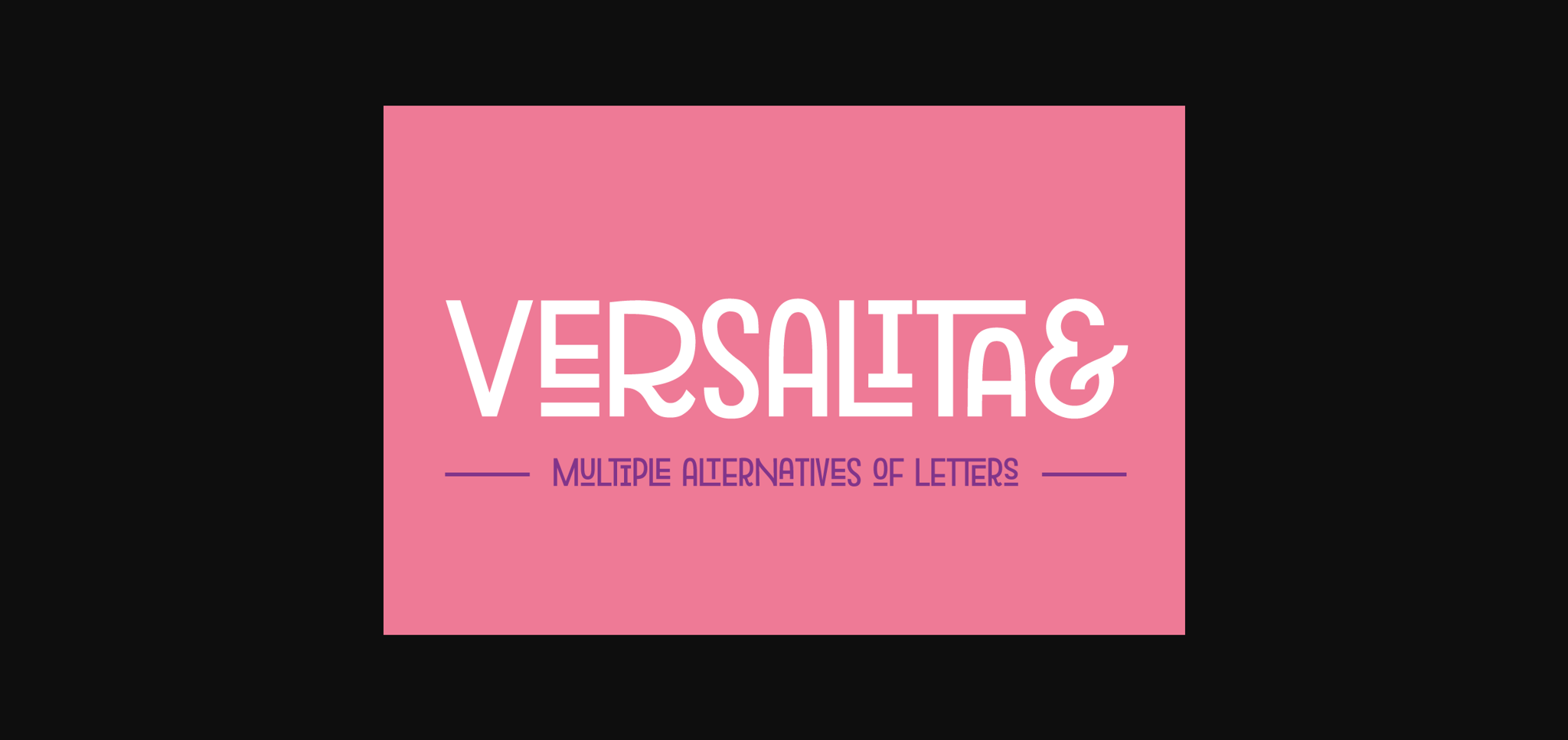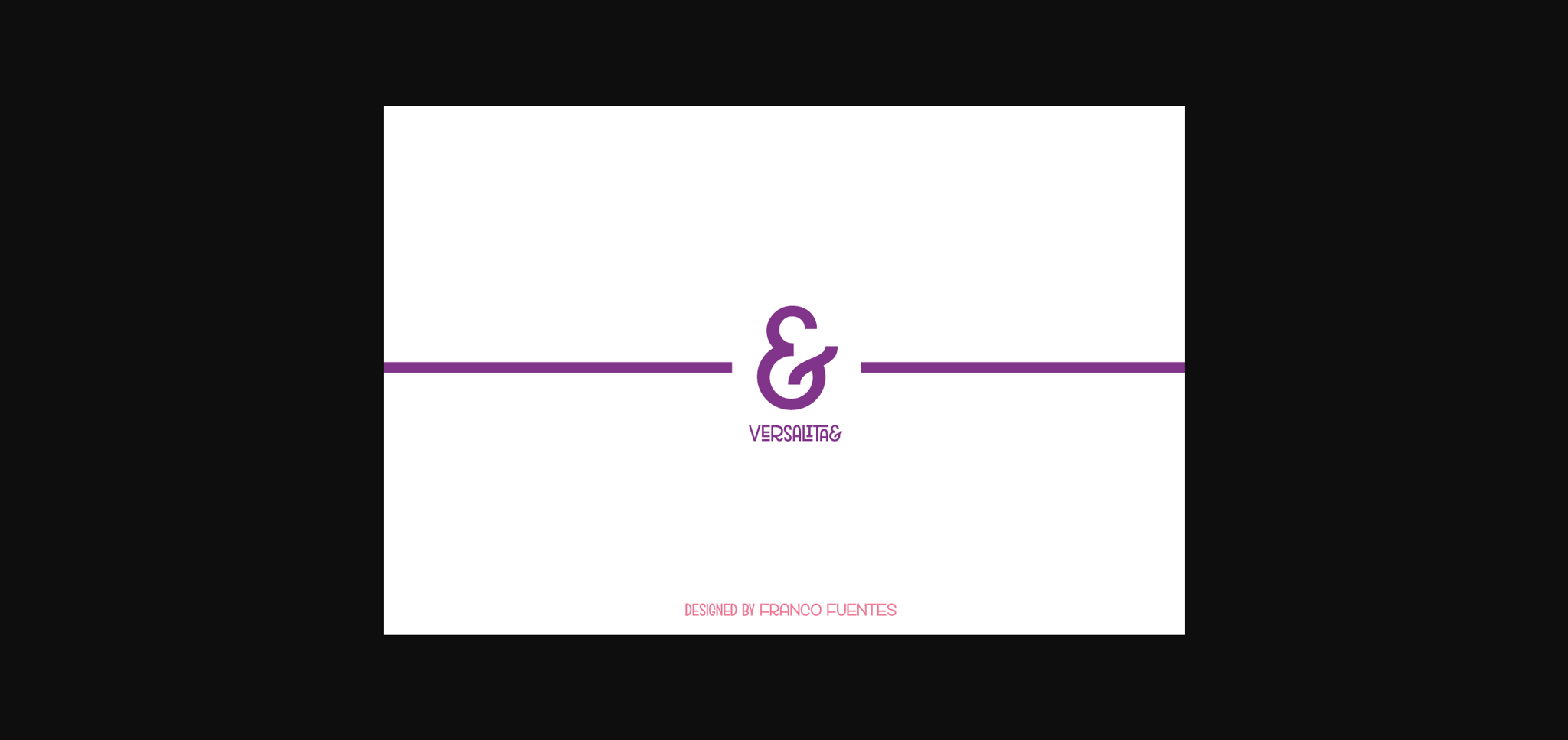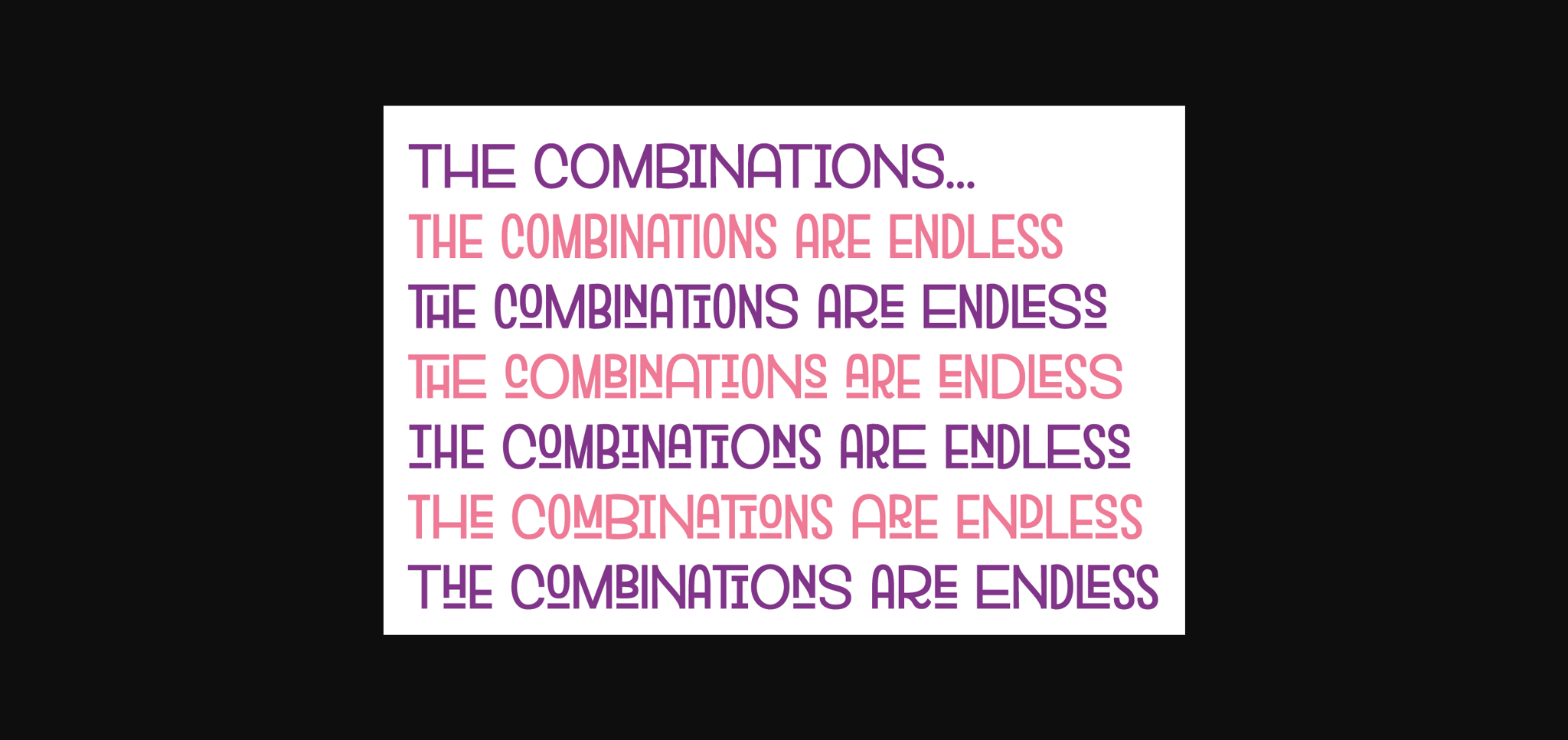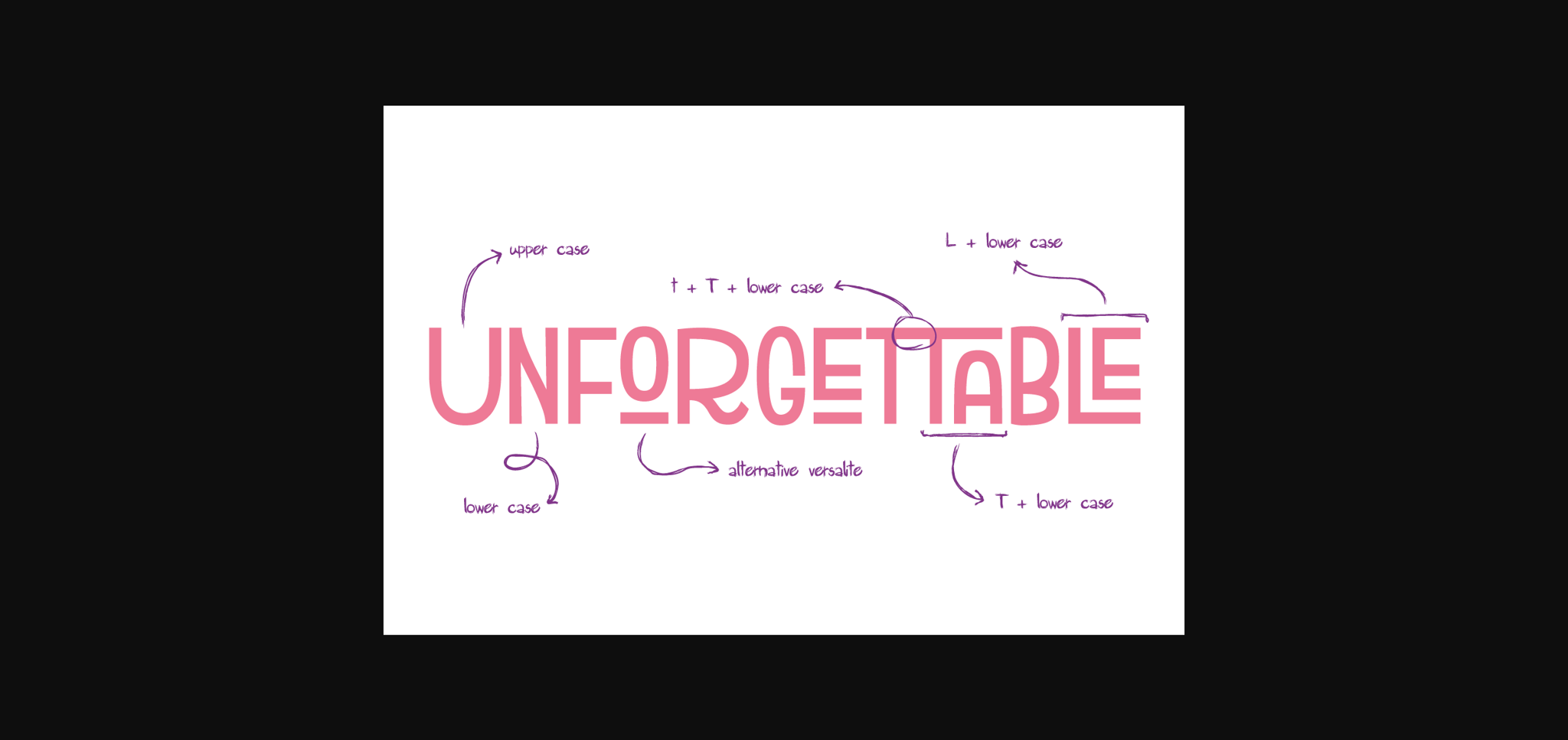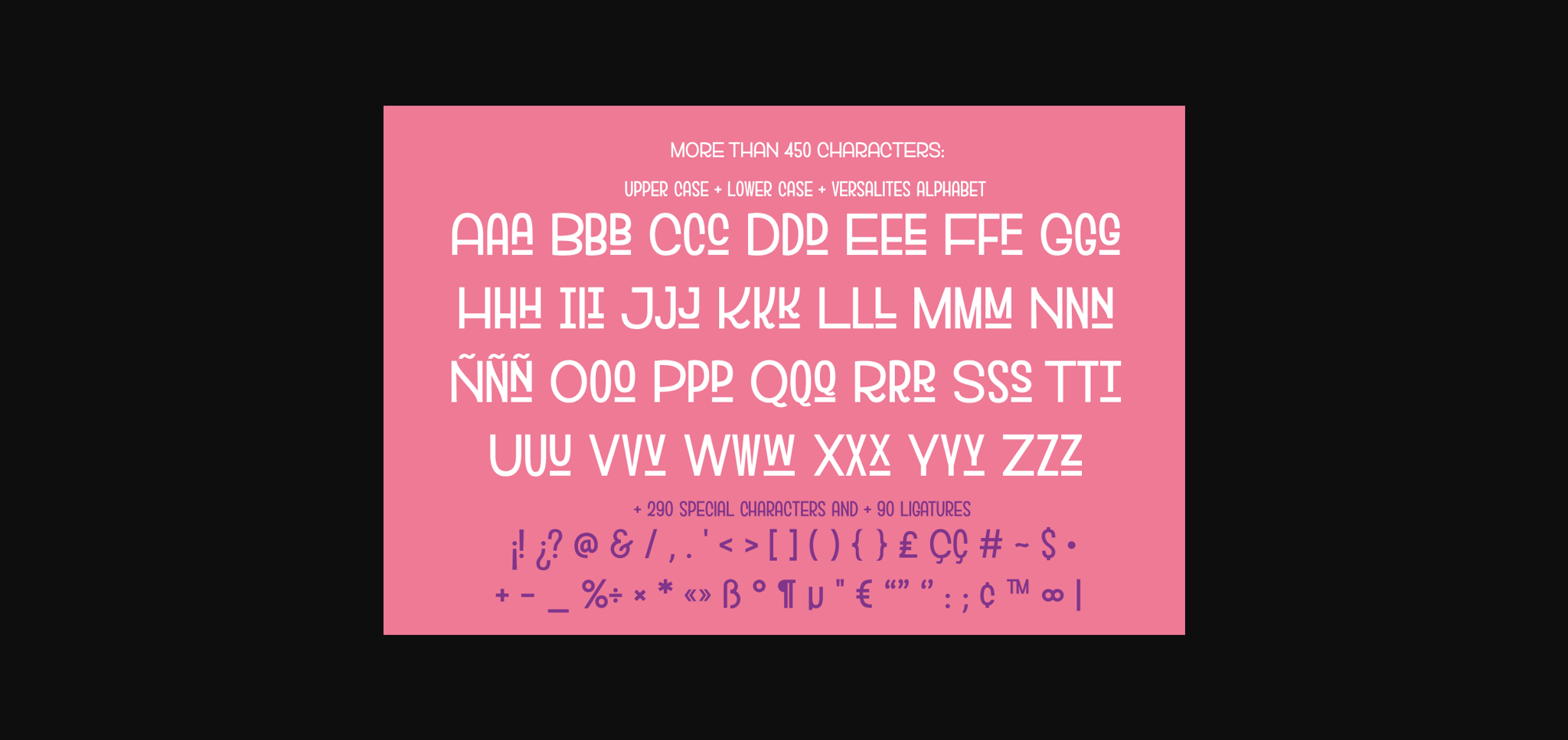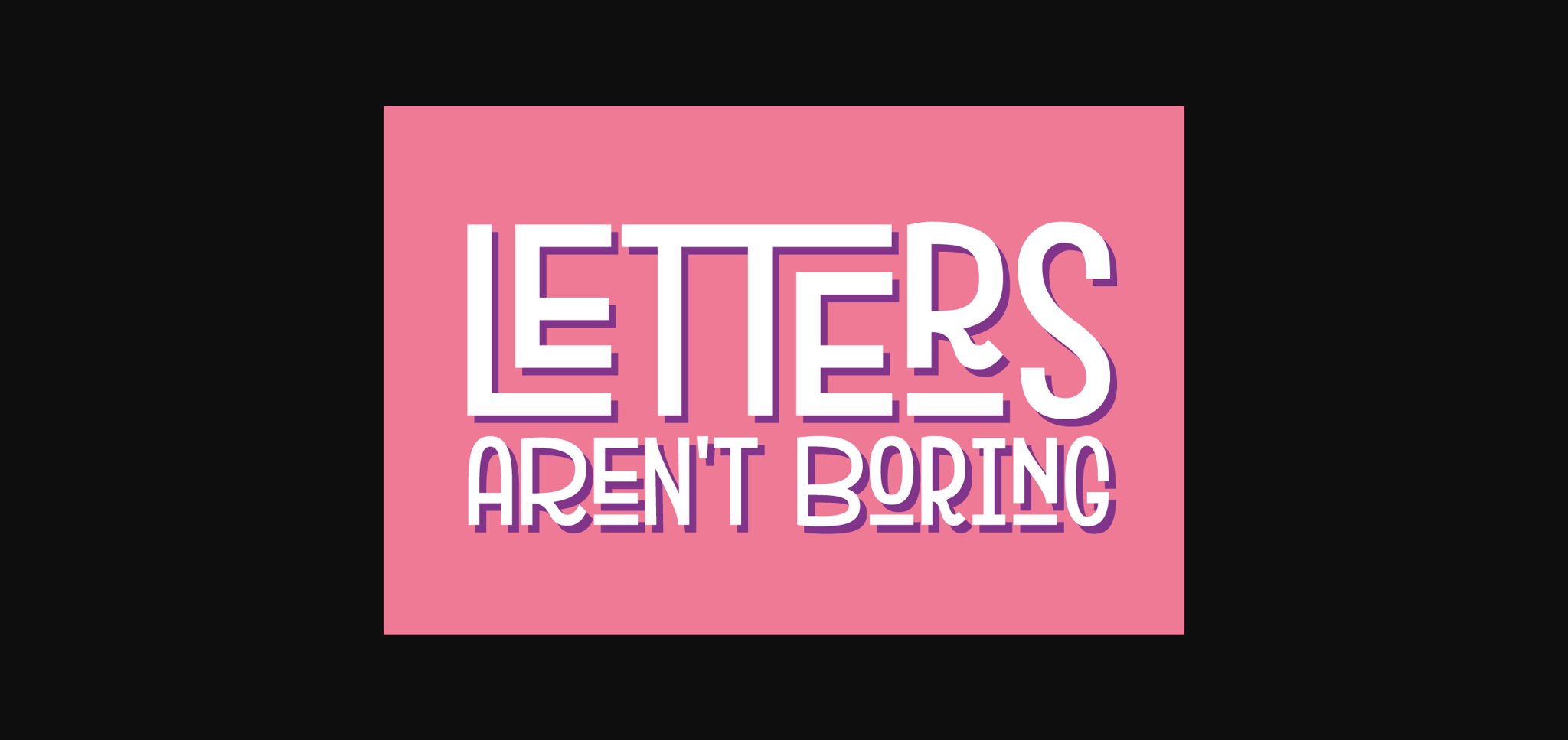
Versalita& Font
Versalita& is a modern sans serif font. It is inspired by classic typography and brings its own unique style to any design project. This versatility will appeal to a wide range of crafty ideas, from letterheads and titles, to stationery.